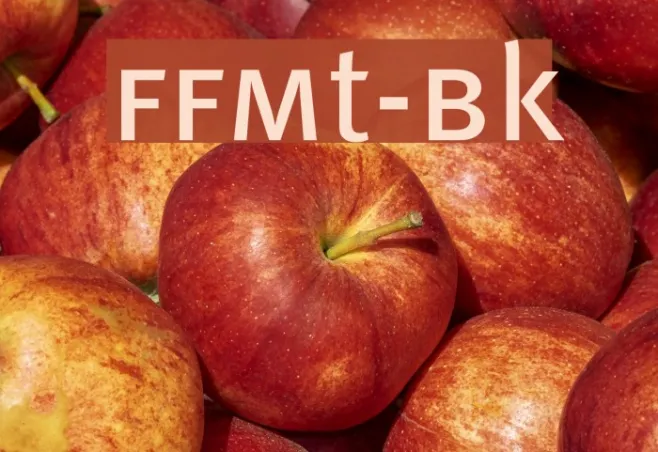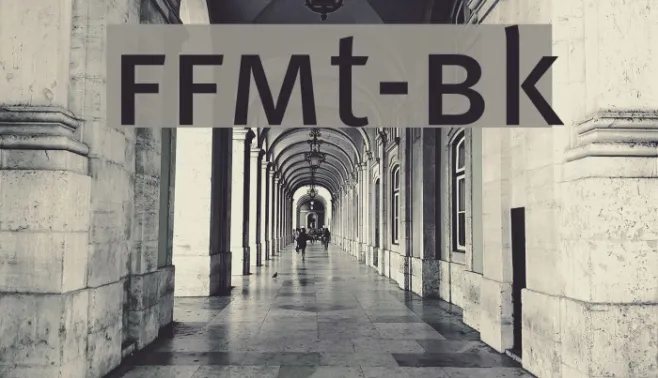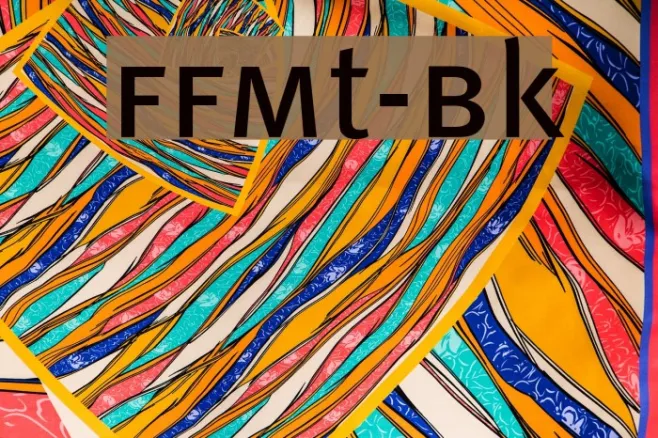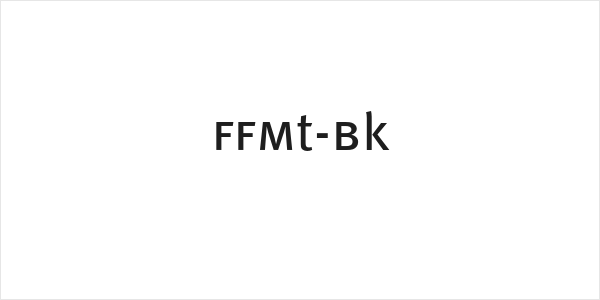
FFMt-Bk Font
FFMt-Bk Description
This font features a clean and modern sans-serif design with uniform stroke widths, providing a balanced and professional appearance. The uppercase letters are bold and assertive, while the lowercase letters maintain a consistent and harmonious flow. The numerals are clear and easily distinguishable, making them suitable for various applications. Special characters are well-integrated, enhancing the font's versatility. The overall design is straightforward yet impactful, making it ideal for both digital and print media.
| Proposed Projects | Ideal for corporate branding, website headers, digital content, and print materials such as brochures and business cards. |